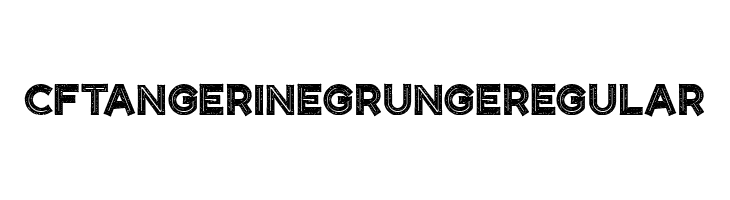
A bold, decorative font with a grunge texture and vintage appeal.
A bold, grunge-style decorative font with a vintage, distressed look.
A bold, distressed font with a rugged, vintage appearance.